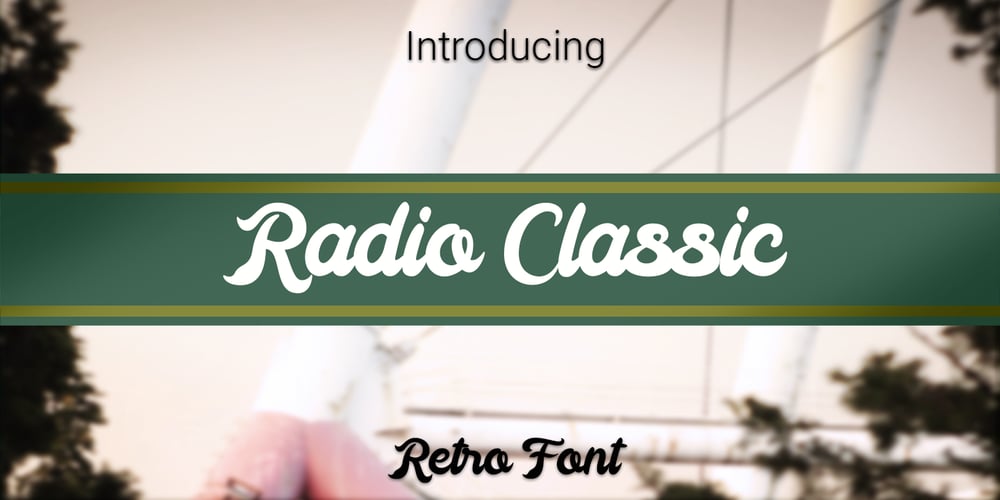
Radio Classic Font Family was designed by RoninDesign and published by Ronin Design. Radio Classic contains 1 styles and family package options. Radio Classic is a retro handwriting font, the soft design makes it friendly to anyone, this font is the perfect choice for each of your designs.